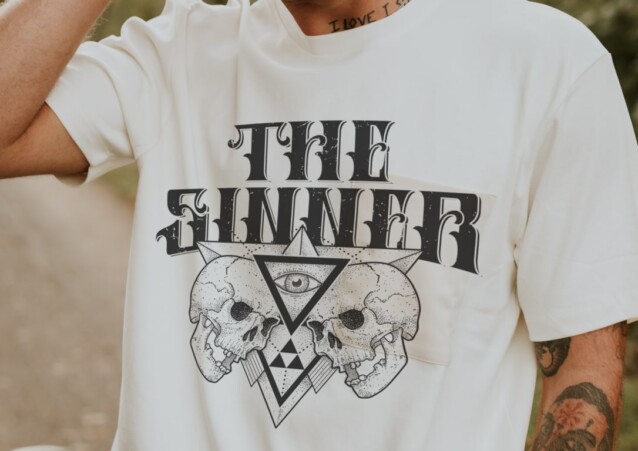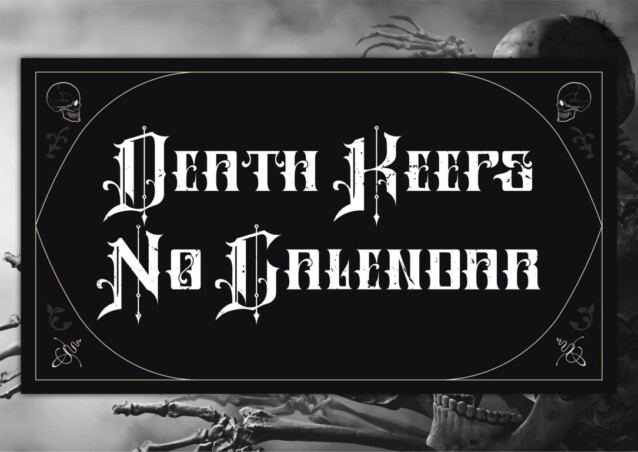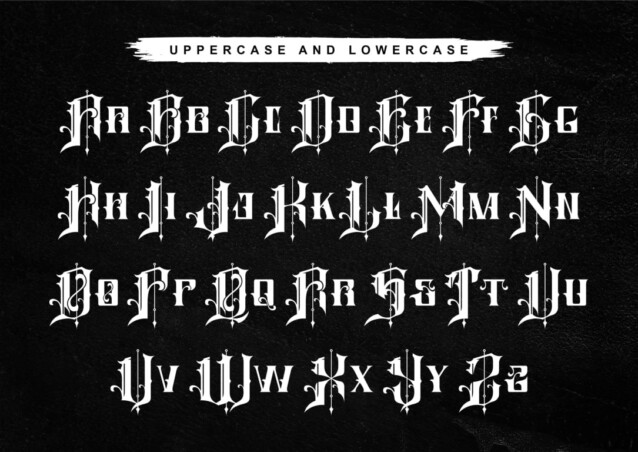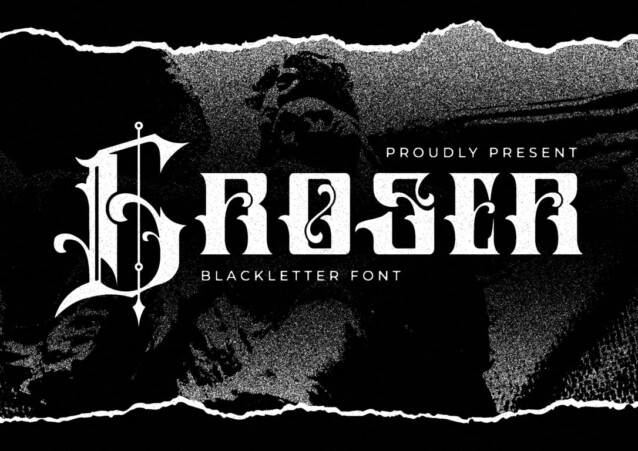
Groser Font
Groser Font is a typeface inspired by the blackletter typeface, made with a modern impression but still looks strong and unique. Originally crafted for tattoo studios, beverage labels, apparel companies, and a myriad of other creative endeavors, Groser surpasses expectations by delivering delightful surprises. This font flaunts a plethora of alternate characters, mesmerizing flourish elements, and decorative ornaments inspired by meticulously selected capital letter forms. Immerse yourself in the enchanting realm of Groser and let its unique allure mesmerize your design projects.